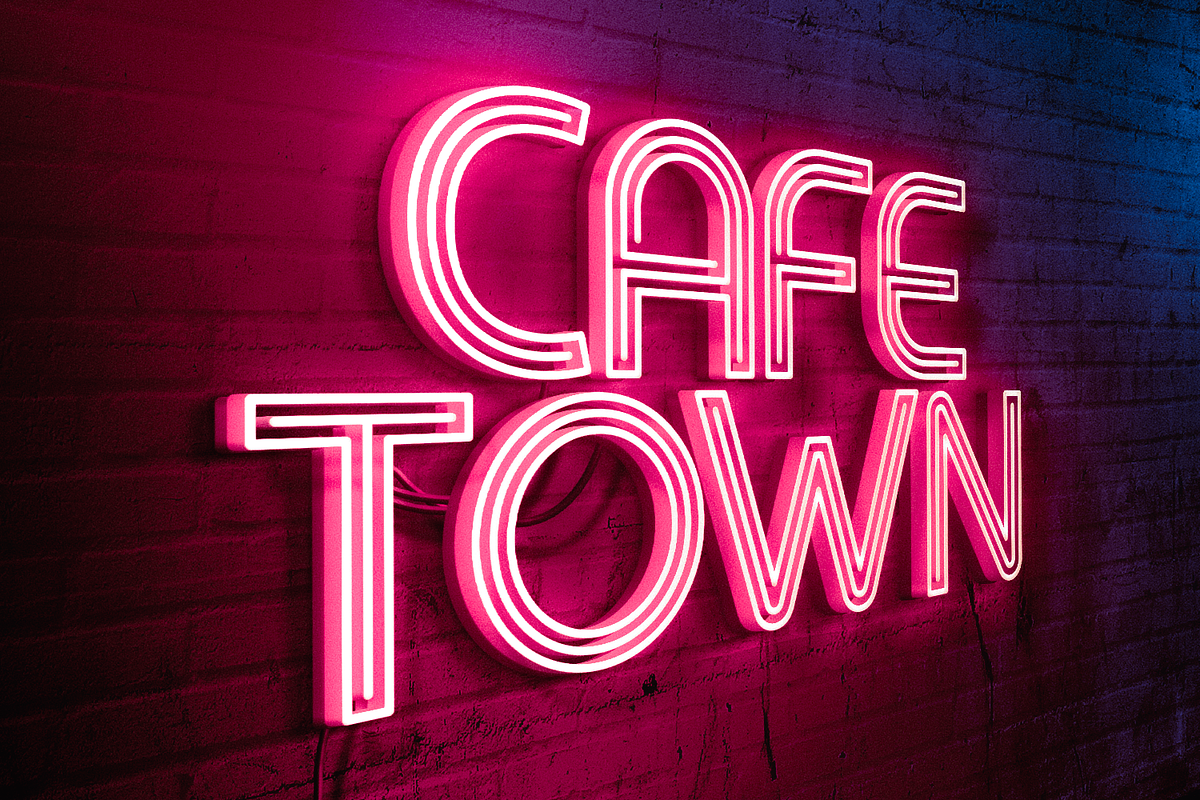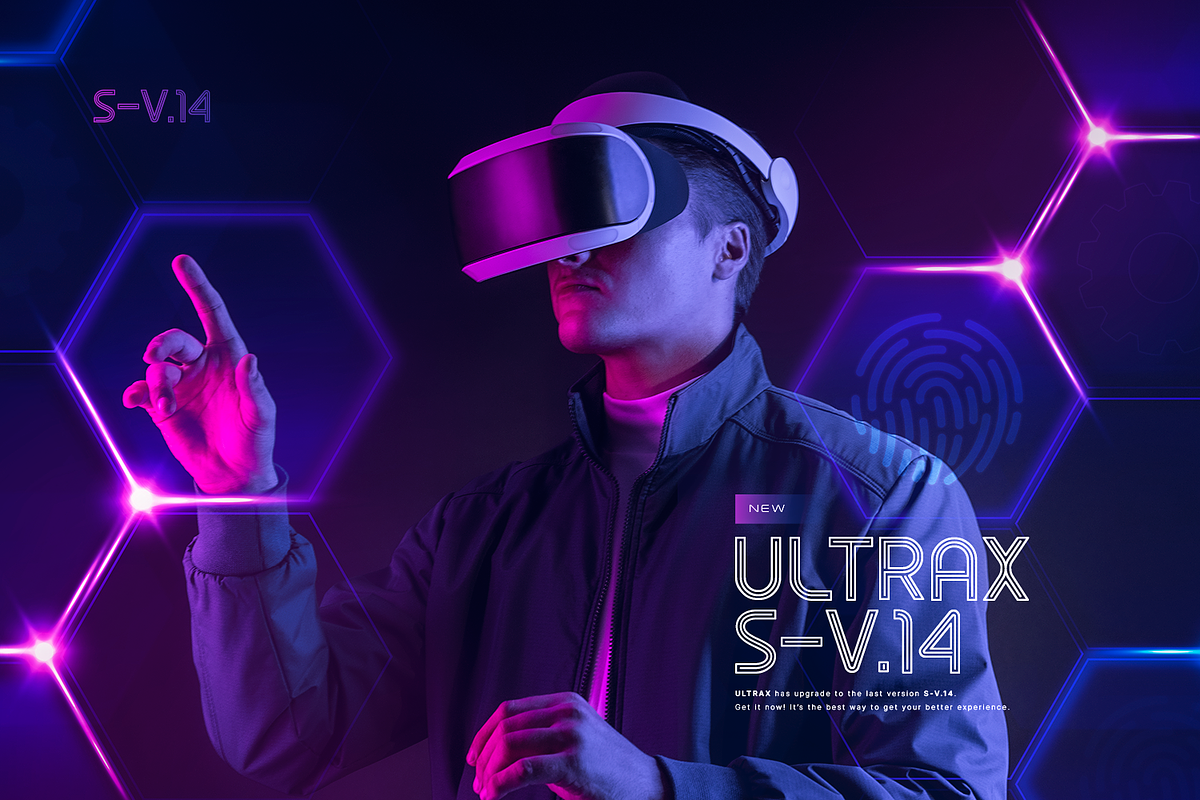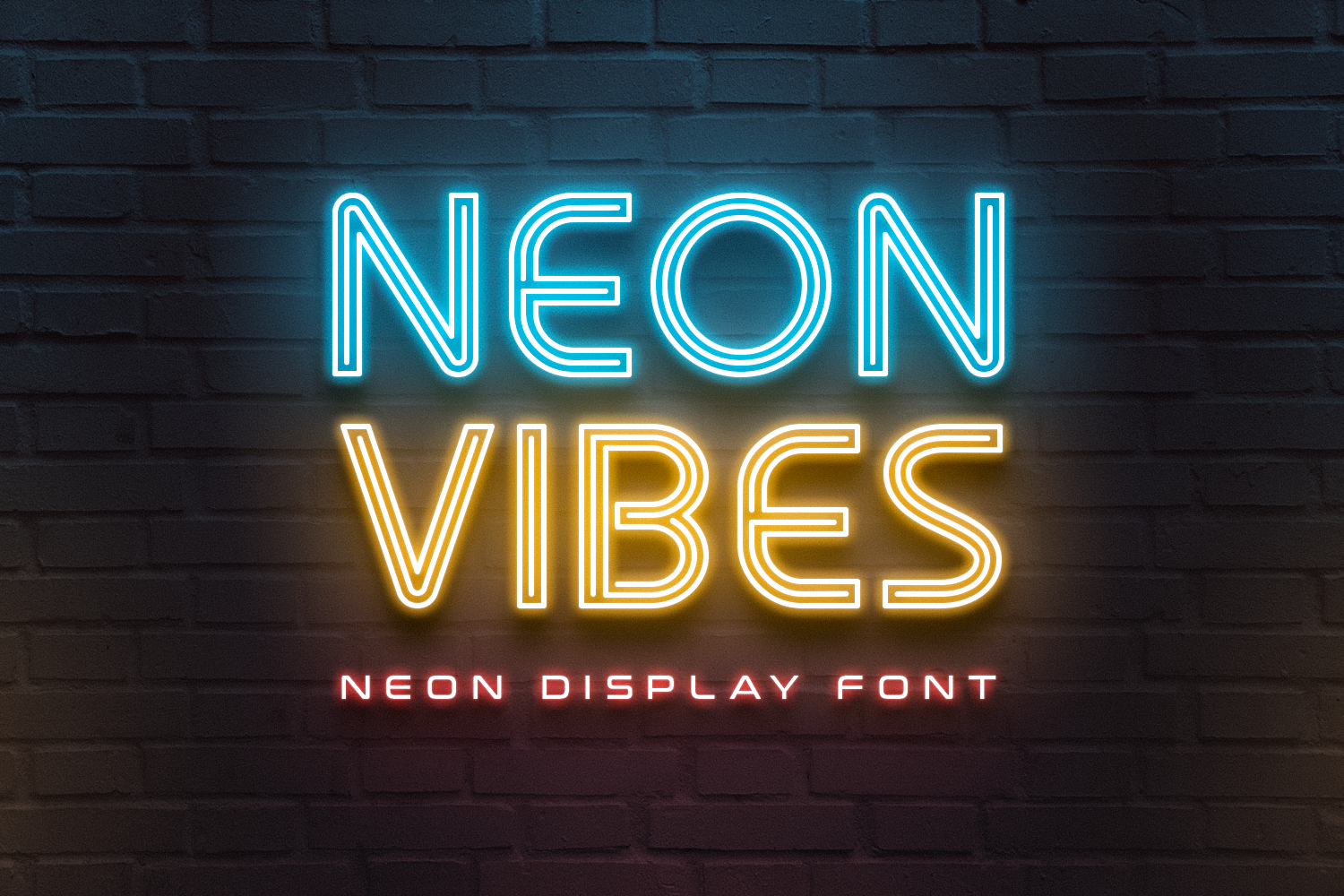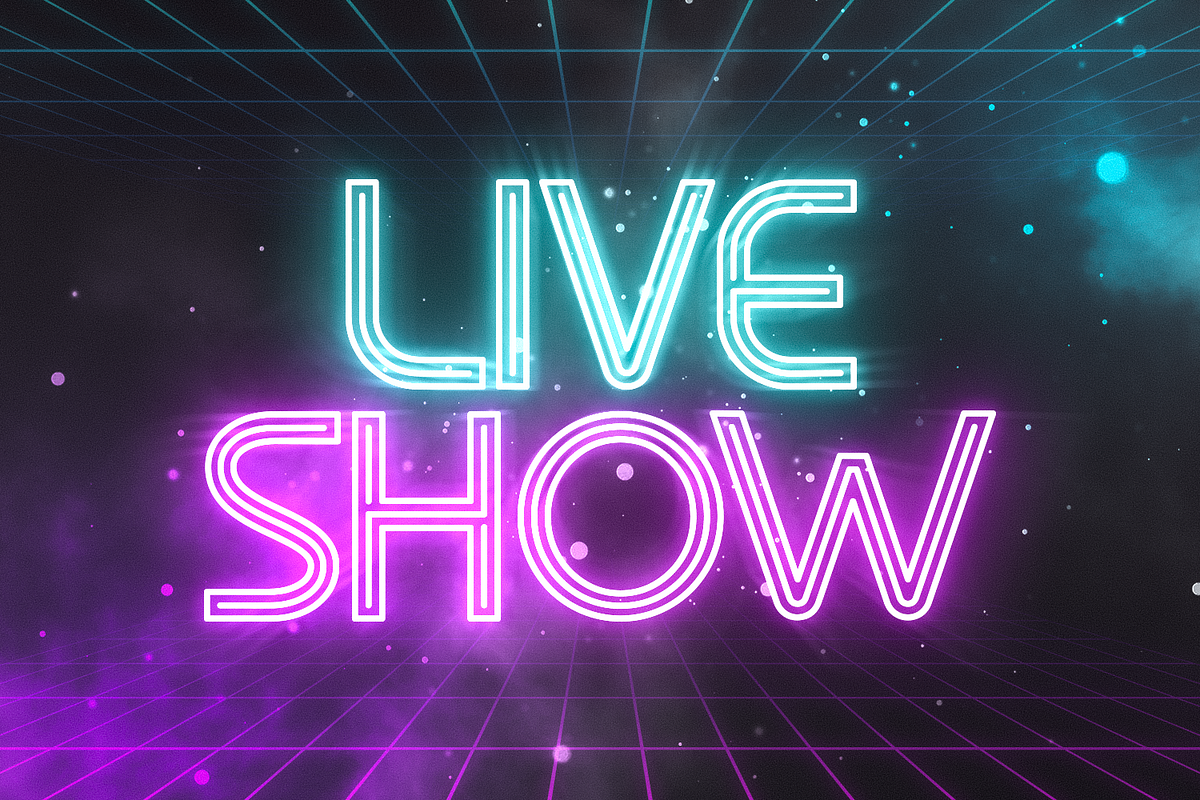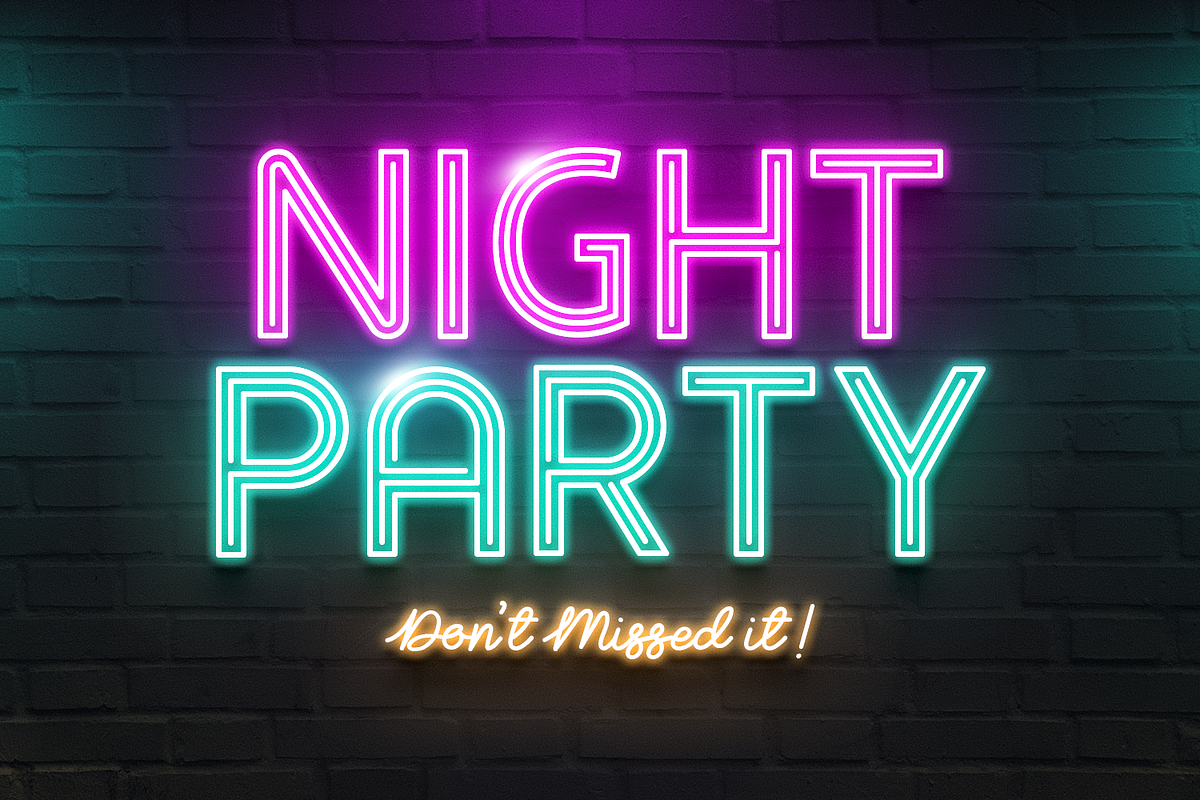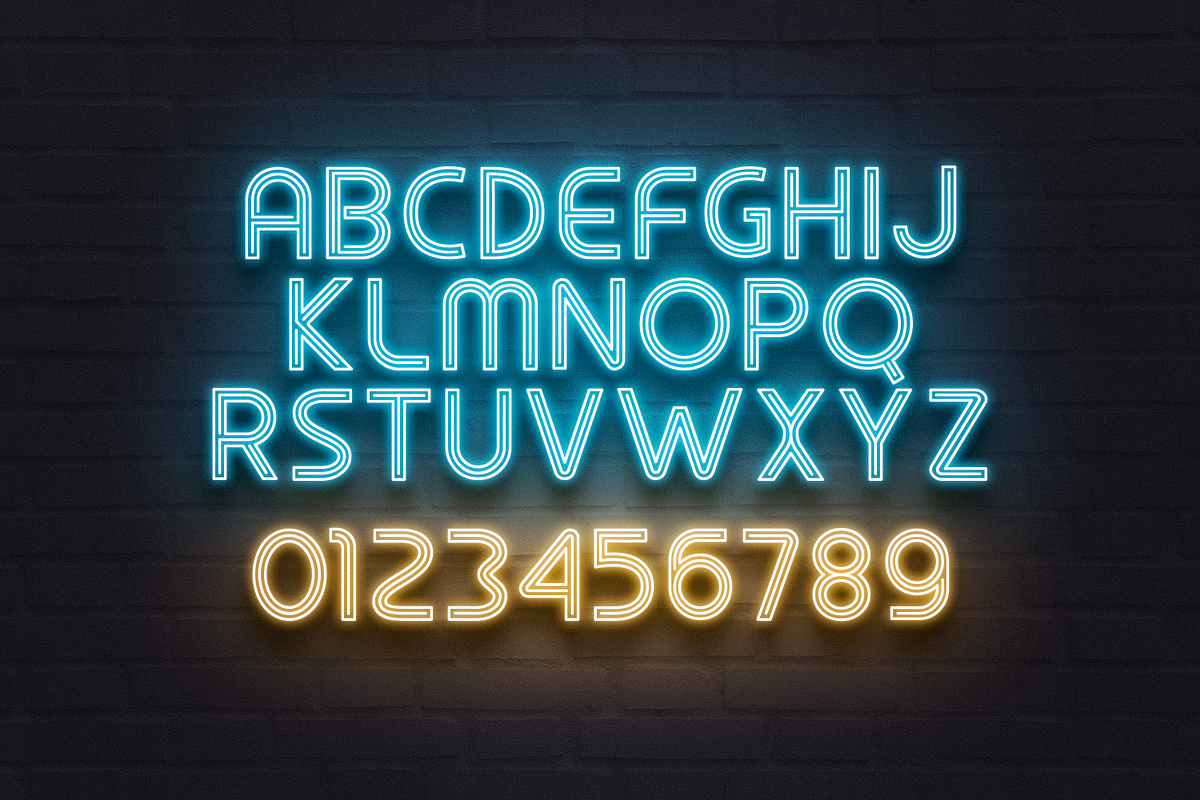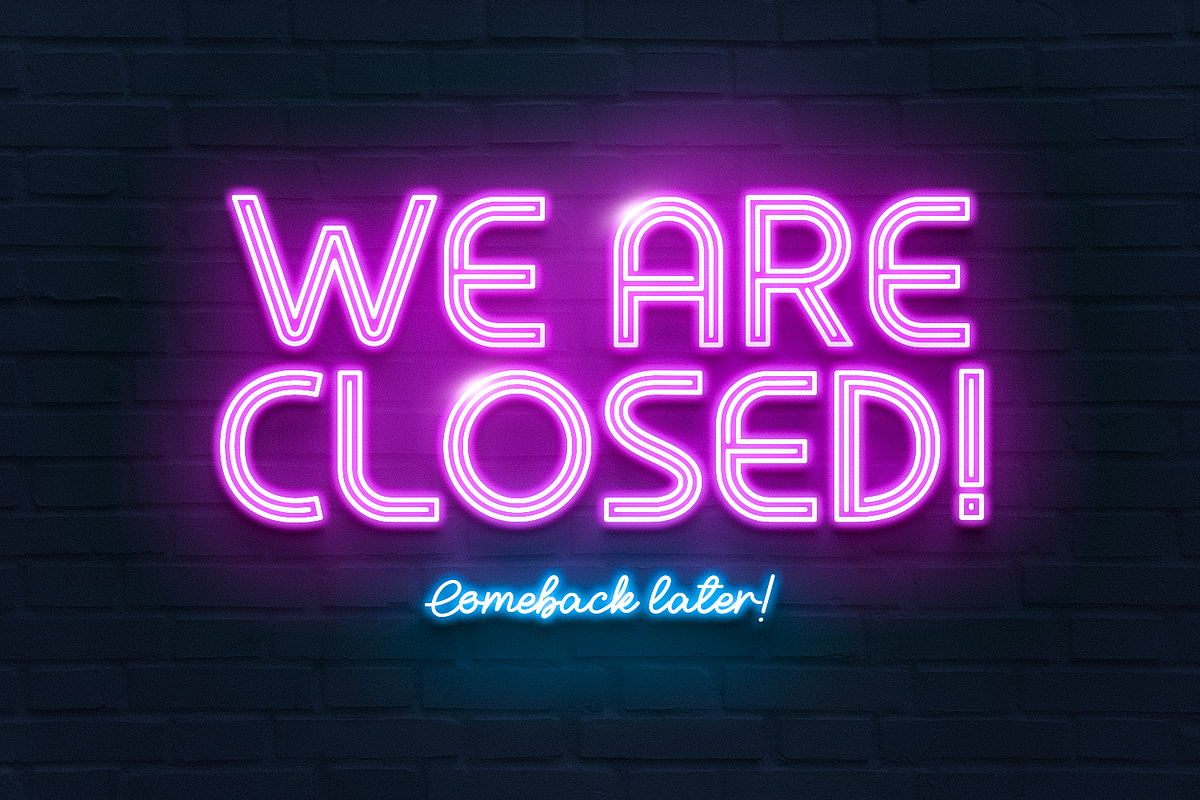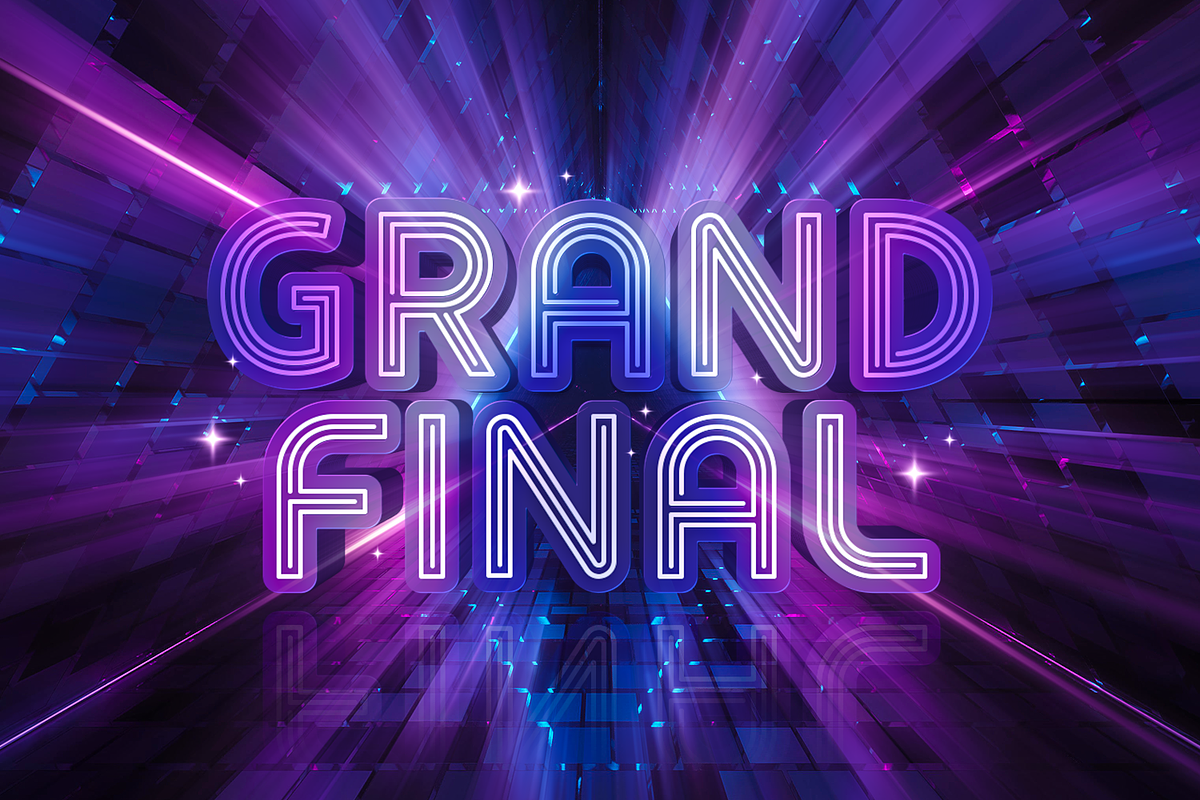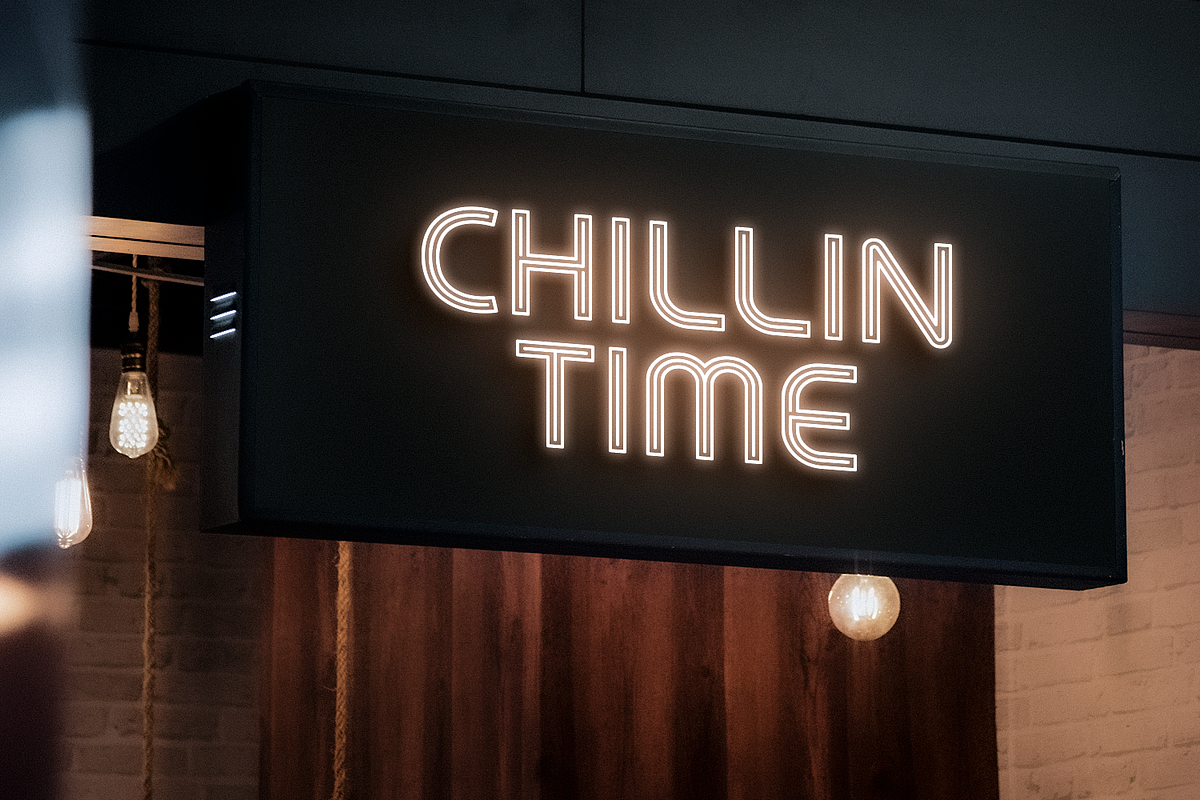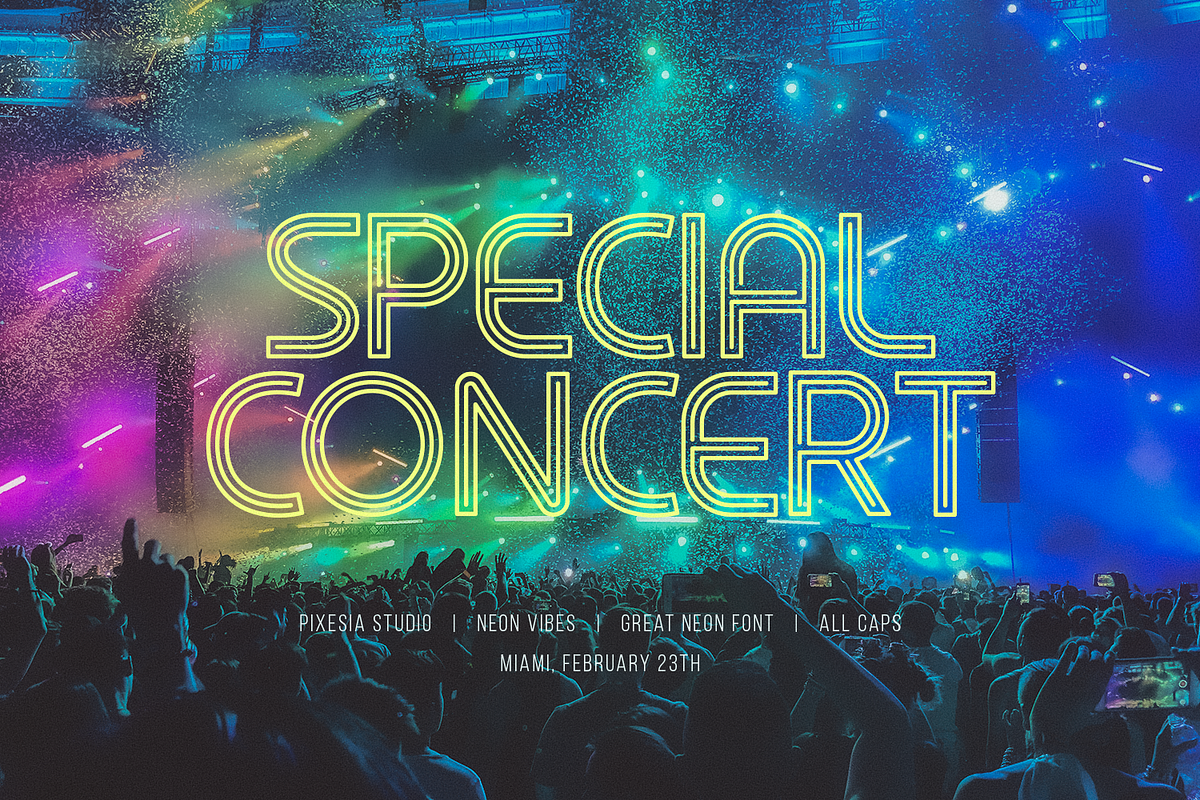
Neon Vibes - Retro Neon Light Font
Introducing Neon Vibes - Retro Neon Light Font
Neon Vibes is a fun and playful retro neon light font that brings a touch of the 80s to your designs. This font is perfect for creating eye-catching headlines, logos, and other design elements that demand attention. Its bright and bold design evokes the feeling of a neon-lit cityscape, making it a great choice for retro and nostalgic designs. With its extensive character set and support for multiple languages, Neon Vibes is a versatile font that will add a touch of personality to your designs. Whether you're working on a retro-themed project or just looking to add a touch of fun to your designs, Neon Vibes is the perfect font for you!
- All Caps